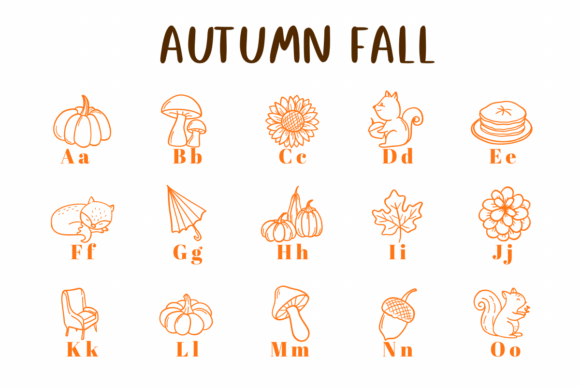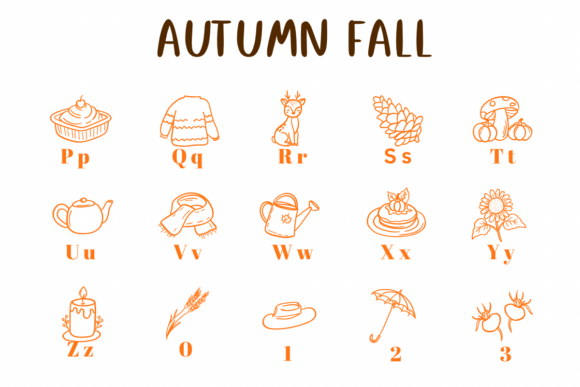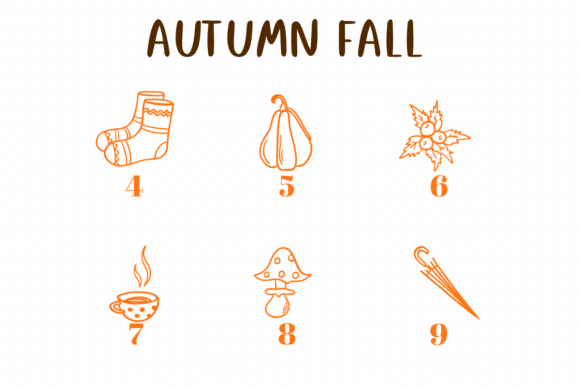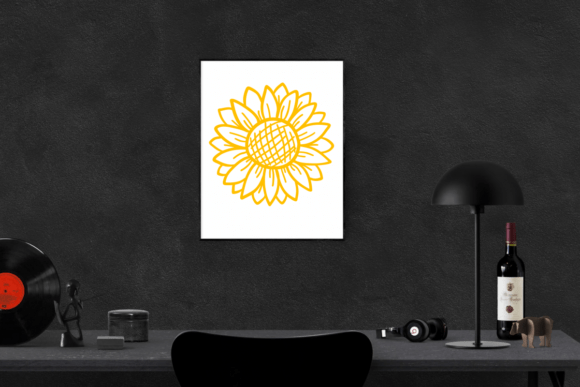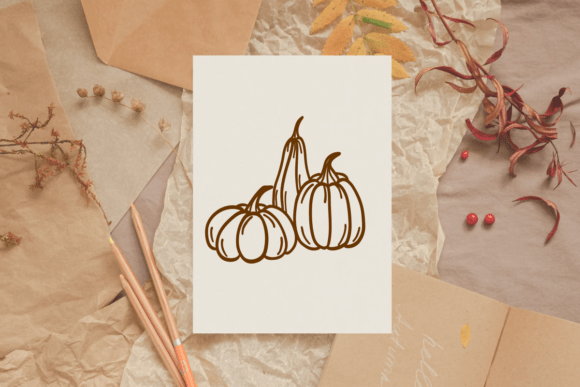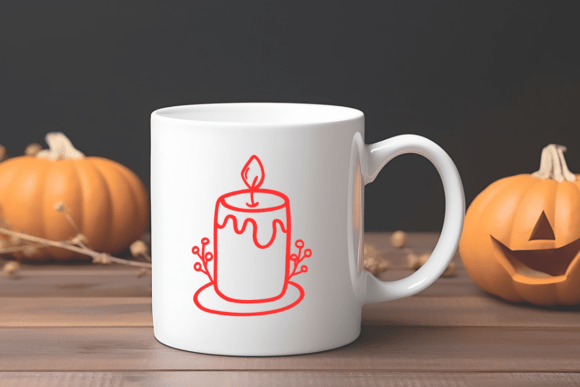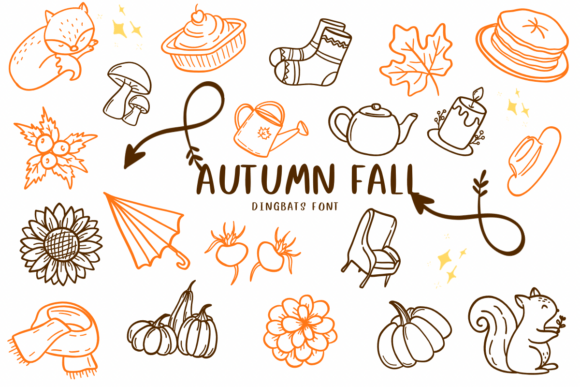
Introducing Autumn Fall Font: Elevate Your Creative Projects with a Natural Touch
As the seasons change and autumn leaves start to fall, designers and crafters are on the lookout for inspiration to infuse their projects with a natural and cozy feel. If you’re searching for a font that embodies the essence of autumn, look no further than the Autumn Fall Font. This beautiful dingbats font is specifically designed to bring a touch of the great outdoors to your creative endeavors, making it perfect for a wide range of applications.
What is Autumn Fall Font?
Autumn Fall Font is a unique dingbats font that features a stunning collection of natural elements, including leaves, flowers, and other seasonal motifs. The font’s design is carefully crafted to evoke the warmth and coziness of autumn, making it an ideal choice for projects that require a personal touch. Whether you’re working on wedding invitations, DIY crafts, decorations, logos, or any other creative idea, this font is sure to impress.
Key Features of Autumn Fall Font
- Natural Theme: The font’s natural theme is perfect for autumn-inspired projects, allowing you to add a touch of the season to your designs.
- Dingbats Design: The dingbats design of the font features a range of beautiful illustrations, including leaves, flowers, and other seasonal elements.
- Versatile: The font is versatile and can be used for a wide range of creative projects, from wedding invitations to logos and decorations.
Creative Ways to Use Autumn Fall Font
Autumn Fall Font is a versatile font that can be used in a variety of creative projects. Here are some ideas to get you started:
- Wedding Invitations: Add a touch of autumn to your wedding invitations with this beautiful font. Use it to create custom illustrations of leaves, flowers, and other seasonal elements.
- DIY Crafts: Use the font to create custom labels, tags, and other embellishments for your DIY crafts.
- Decorations: Create beautiful decorations for your home or office with the Autumn Fall Font. Use it to design custom signs, banners, and other displays.
- Logos: Use the font to create a custom logo for your business or brand. The font’s natural theme and dingbats design make it perfect for companies that want to evoke a sense of earthiness and sustainability.
Tips for Using Autumn Fall Font
Here are some tips for using Autumn Fall Font in your creative projects:
- Experiment with Different Sizes: Experiment with different font sizes to create visual interest and hierarchy in your designs.
- Combine with Other Fonts: Combine the Autumn Fall Font with other fonts to create a unique and visually appealing design.
- Use in Combination with Images: Use the font in combination with images of autumn leaves, flowers, and other seasonal elements to create a cohesive design.
Autumn Fall Font is a beautiful dingbats font that is perfect for designers and crafters who want to add a touch of the natural world to their creative projects. With its natural theme, versatile design, and ease of use, this font is sure to become a favorite in your design arsenal. Whether you’re working on wedding invitations, DIY crafts, decorations, logos, or any other creative idea, the Autumn Fall Font is a great choice. So why wait? Download the Autumn Fall Font today and start creating stunning designs that evoke the warmth and coziness of autumn.